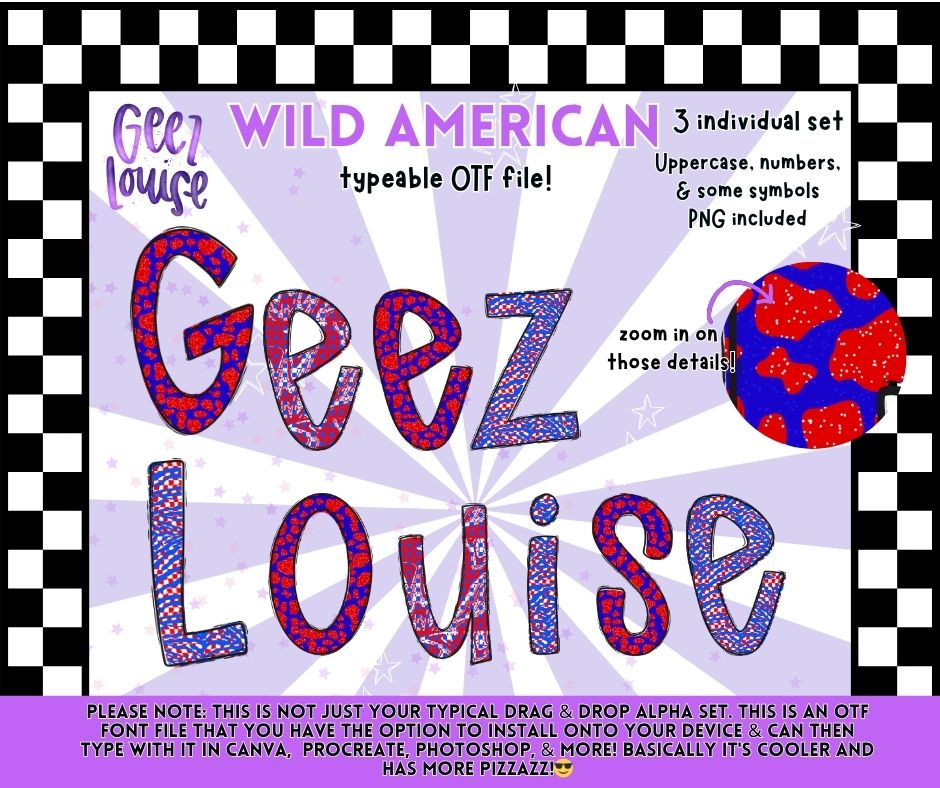
Wild American OTF Font | Patriotic Typeable Alphabet | Red White Blue Font PNG Bundle
Bold, loud, and a little wild 🇺🇸🔥
The “Wild American” typeable OTF font is made for standout patriotic designs. With vibrant red, white, and blue patterns and a fun, edgy style, this font is perfect for creating eye-catching graphics for all your summer and 4th of July projects.
• 3 individual alphabet styles
• Uppercase letters
• Numbers & select symbols
✔️ Unique patriotic patterns with bold color
✔️ Perfect for layering and customizing
Wild, bold, and made to stand out—just how it should be 🇺🇸✨